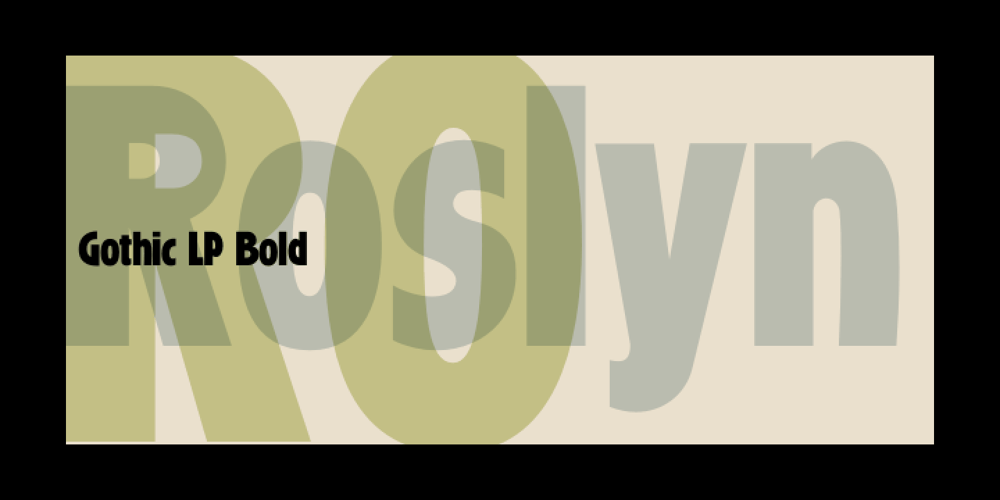
Roslyn Gothic LP Font Family was designed by Garrett Boge and published by LetterPerfect. Roslyn Gothic LP contains 1 styles and family package options. LetterPerfect’s version of this distinctive sans serif design is both legible and approachable, and about as bold as a display font can be. Its friendly persona makes it an ideal choice for greeting cards and invitations, or for use with children’s reading material.